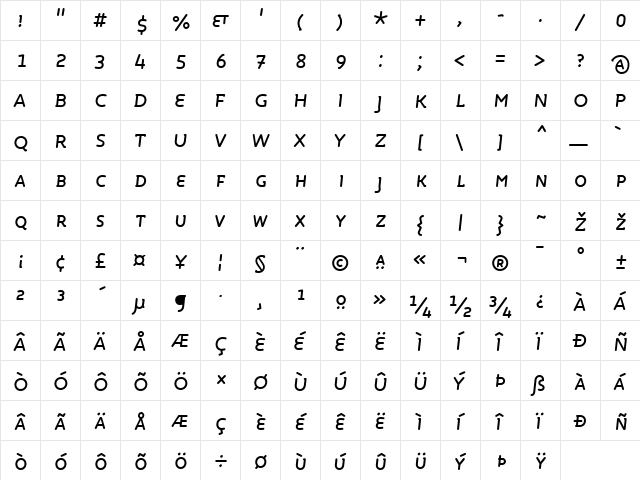
Roice-MediumItalicSC Regular
Roice-MediumItalicSC Regular Font Details
| Foundry | Alex Scholing, published by FontShop International for the FontFont library |
Design Context for Roice-MediumItalicSC Typeface
Roice-MediumItalicSC is a composed and adaptable typeface that performs quietly and consistently across a wide range of design contexts. The dynamic lean of this cut emphasises speed and emphasis in any layout.